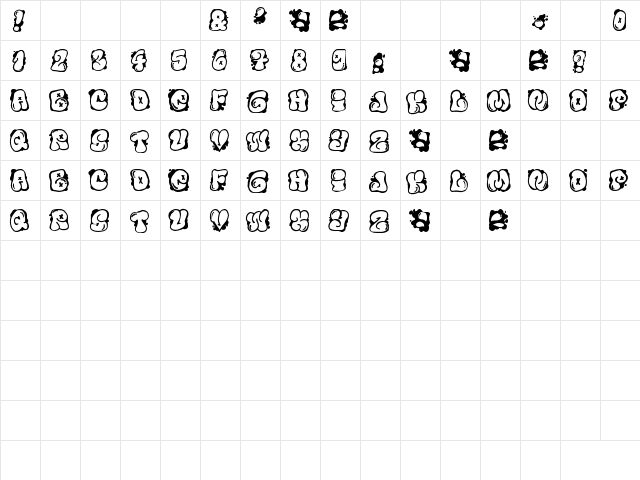
El&Font Bubble Regular
Design Context for El&Font Bubble Typeface
El&Font Bubble trades formality for fun, with bouncy, characterful letterforms that bring warmth and energy to any project.
Great for children's books, toy packaging, family event branding, and casual consumer-facing design.
Font Pairing: Pairs well with a rounded or humanist sans for body copy, maintaining the friendly tone without relying on El&Font Bubble to carry extended reading.
Pro Tip: Avoid using El&Font Bubble for long passages of text — it works best for headlines, labels, and short calls to action.